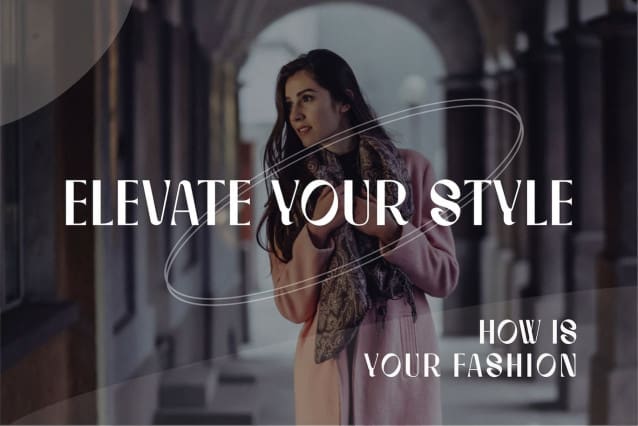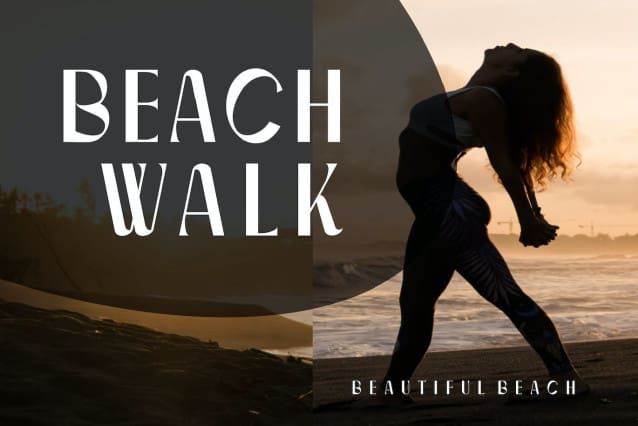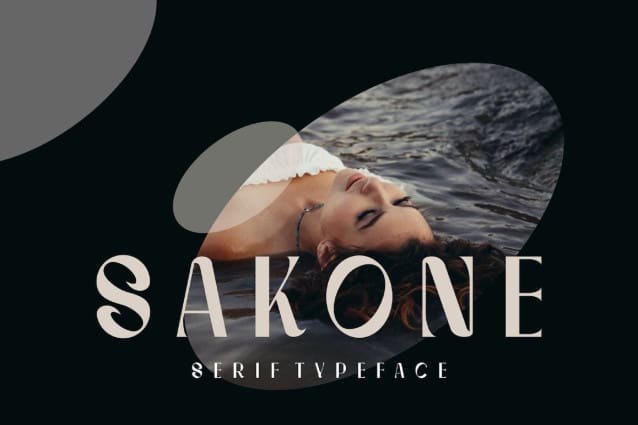
Sakone Font
Sakone Font, inspired by the famous minimalist logo perfect for the purposes of designing templates, brochures, videos, advertising branding, logos, invitation, layout design, elegant crafting, beauty design and other